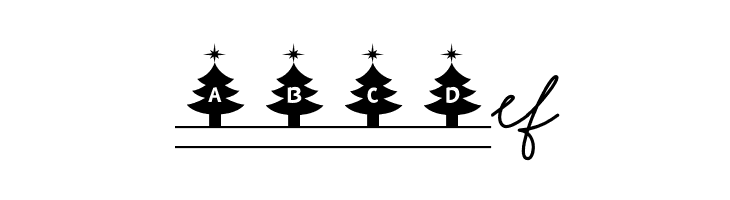
A festive cursive script with Christmas tree decorations, ideal for holiday themes.
A festive script font with Christmas tree motifs on uppercase letters and numbers.